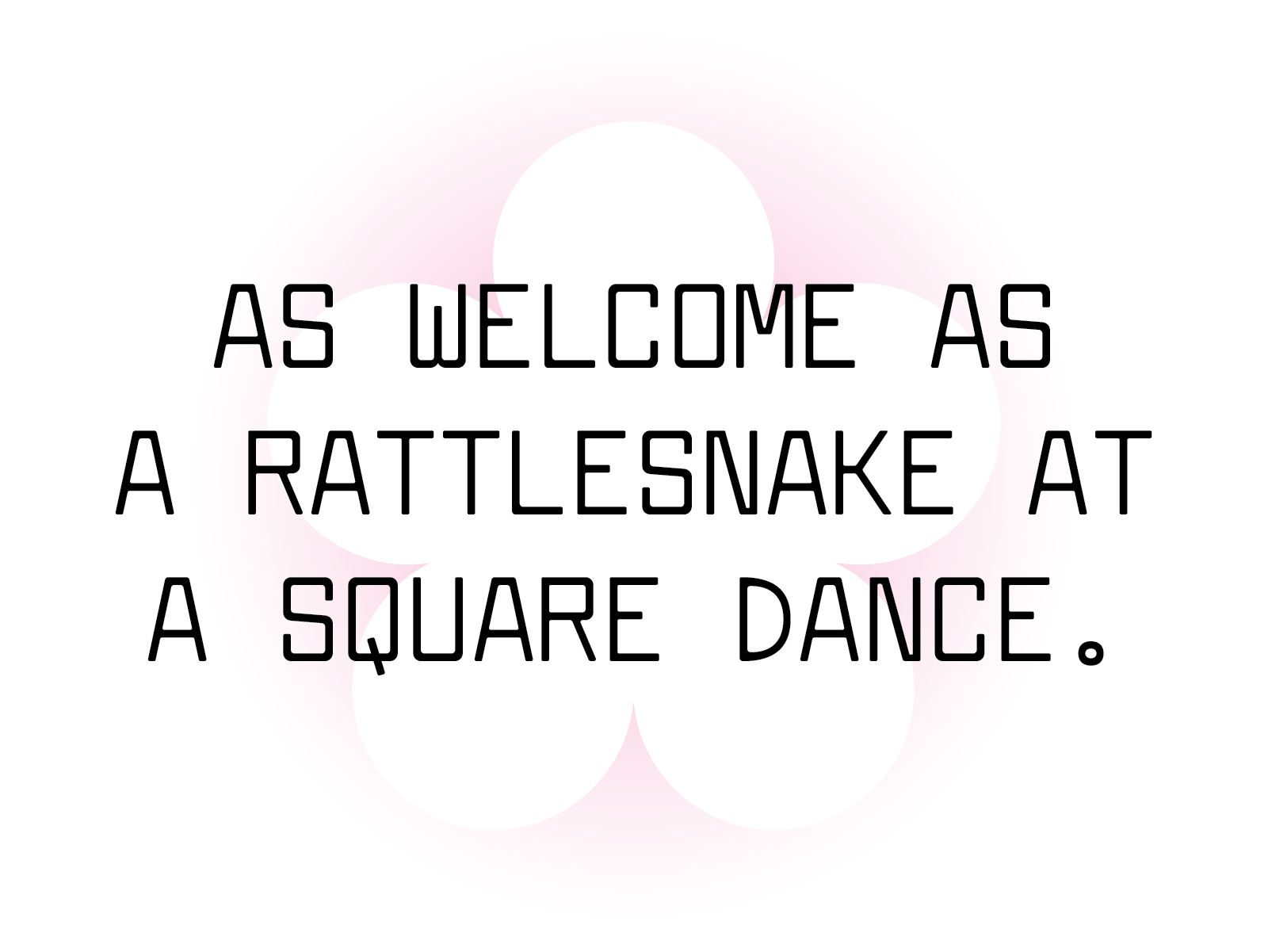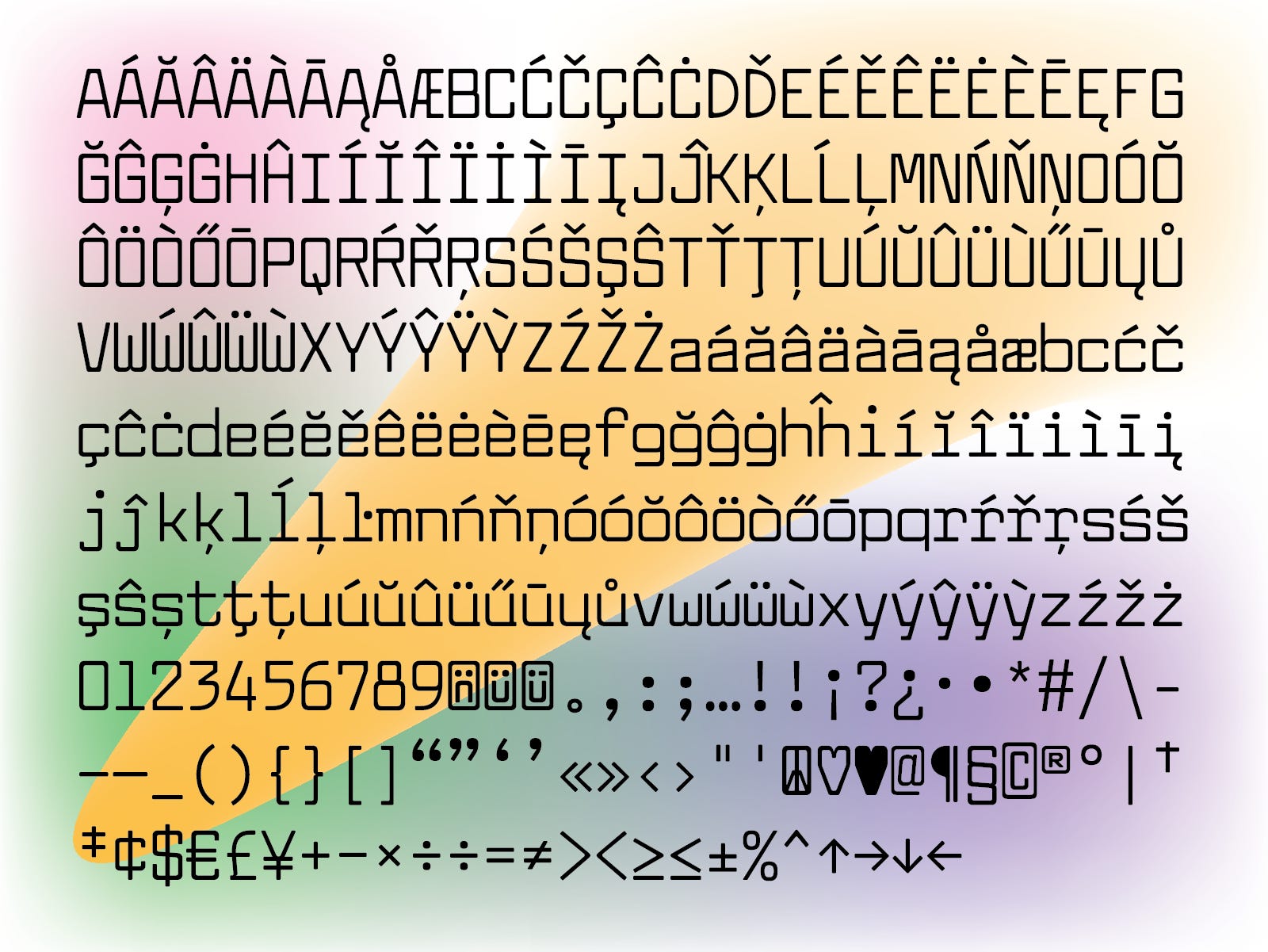
The final part of this update is that I am really itching to get my website fully up and running. The reason I haven’t is because I don’t have much of a library yet. Therefore, I have started working on Weightless (from Week 50 of the 52 Fonts Project).
It’s a selfish one to work on because it was definitely not my most popular font from the series — it’s one I personally gravitate towards while graphically designing. Weightless has the added benefit of being easy to work on because the system is already fully developed and pretty rigid. Therefore I don’t have to come up with crazy solutions for anything. It’s honestly been a really great way to get back in the saddle again.
My plan for Weightless is to keep it a simple 4-style family. Regular, Bold, Italic, and Bold Italic. The regular weight is almost done — just a few more diacritics to make and the pesky ampersand. I have some funky, futuristic ideas for the italic. Can’t wait to show you!